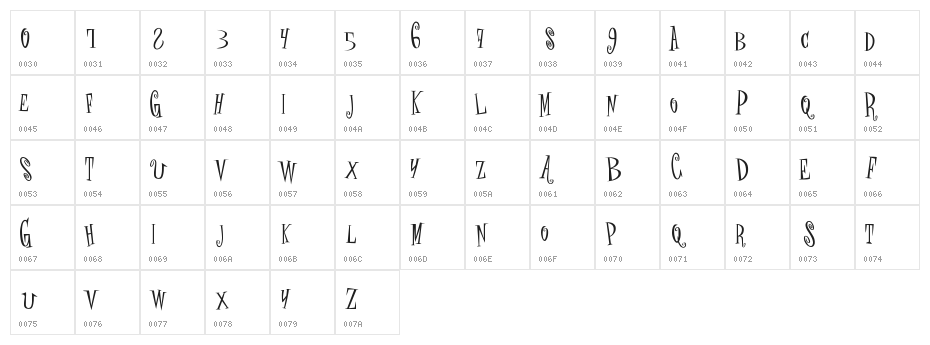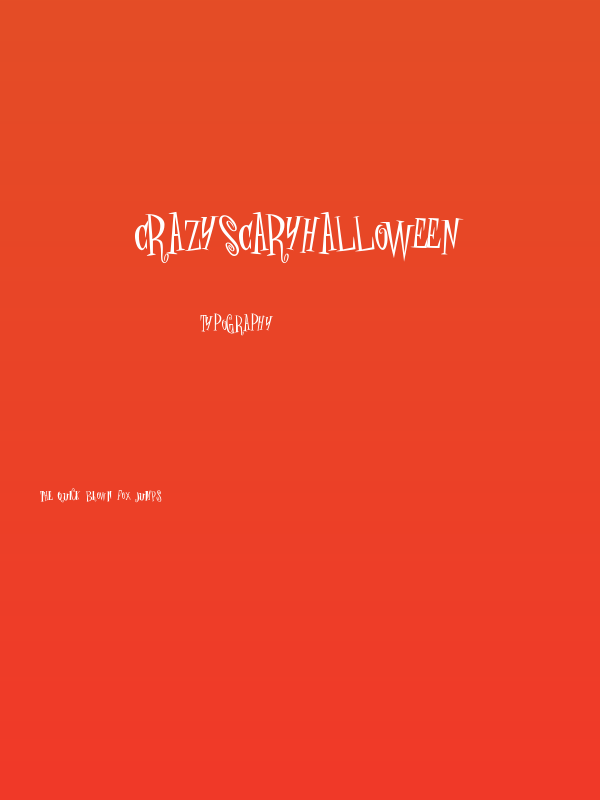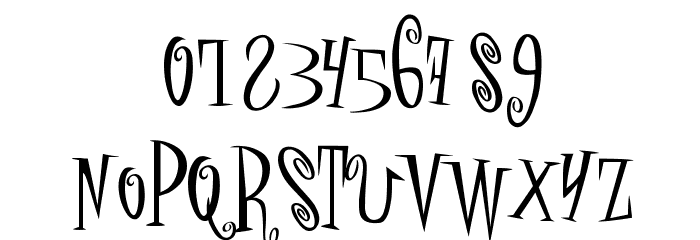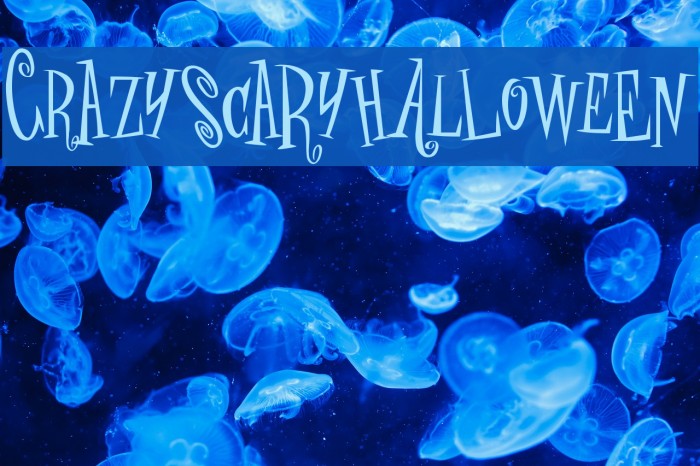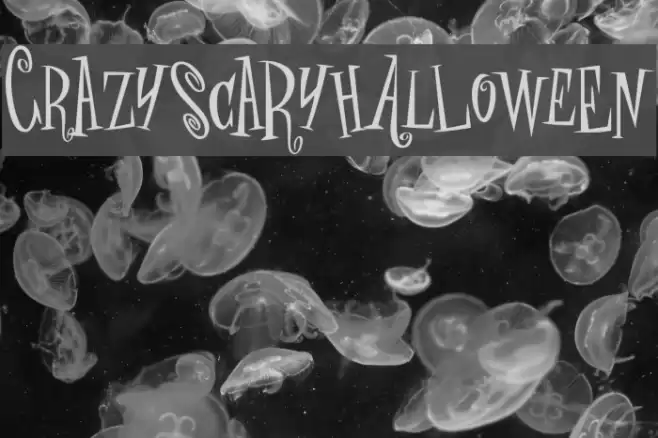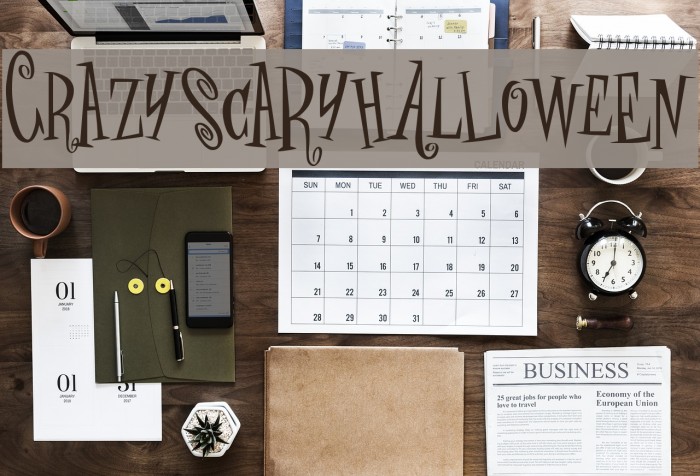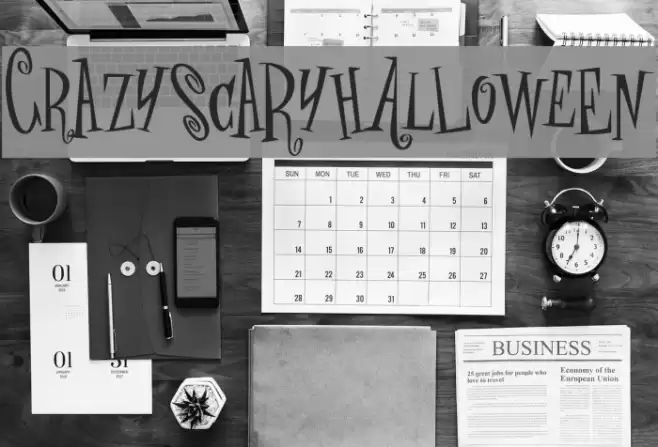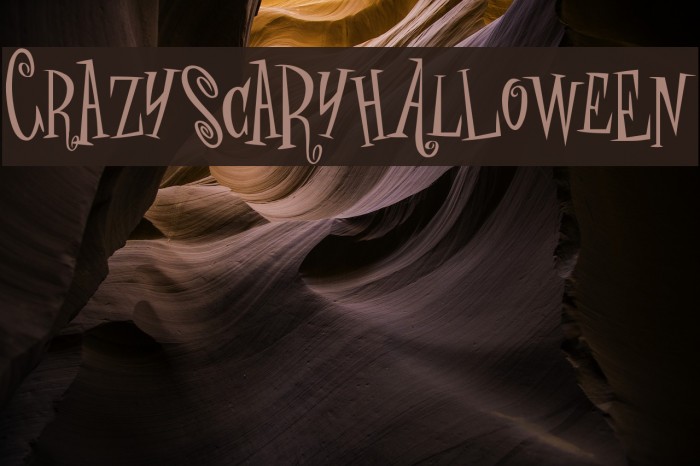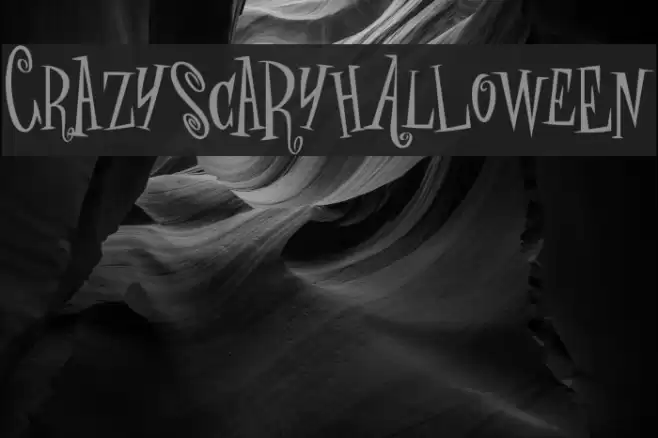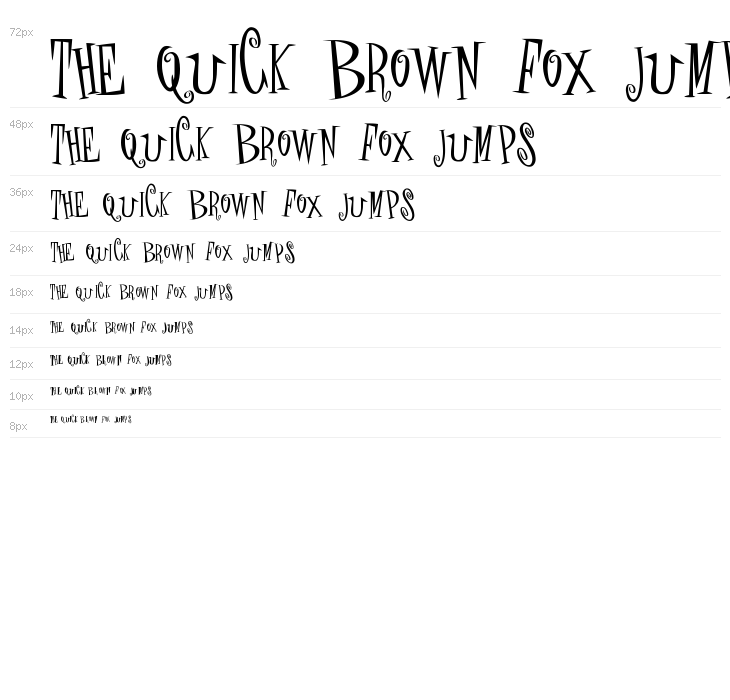
crAZYSCARYhalLowEeN Font
This font features a whimsical and playful design with a spooky twist, perfect for Halloween-themed projects. The letters are characterized by their quirky, uneven strokes and decorative swirls, giving them a lively and animated appearance. The uppercase and lowercase letters maintain a consistent style, with exaggerated curves and unique flourishes that add to the font's charm. Numbers and special characters are equally stylized, ensuring a cohesive look across all text elements. The overall design is bold and eye-catching, making it ideal for capturing attention in creative and festive contexts.
| Proposed Projects | Ideal for Halloween invitations, party decorations, themed posters, and playful branding. |